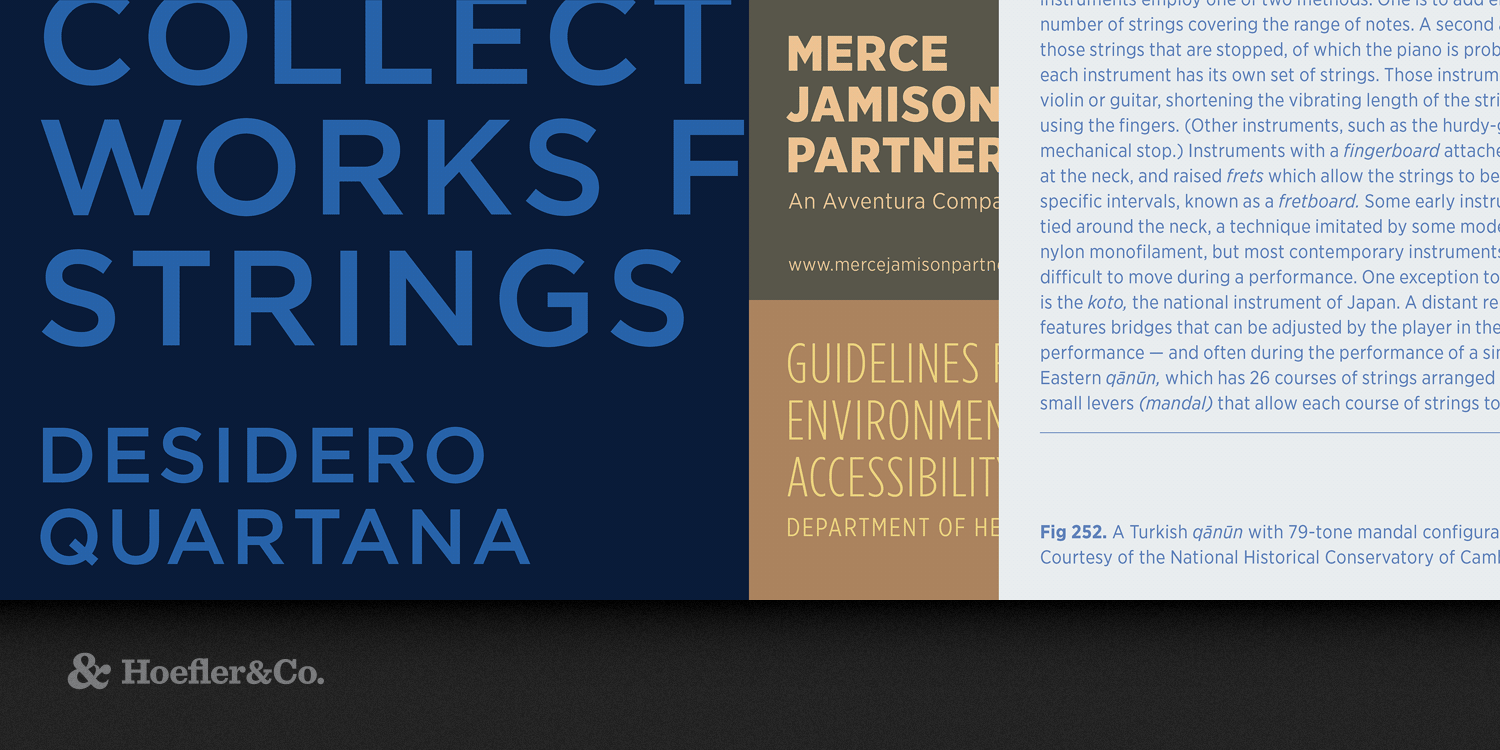
Gotham Font is perfect for modern corporate branding, political campaign materials, urban architecture signage, contemporary magazine layouts, tech startup logos, municipal government communications, metropolitan transit systems, modern museum displays, progressive advertising campaigns, and any projects that need strong, authoritative typography with urban sophistication.
What makes Gotham Font exciting is its powerful geometric design inspired by the bold lettering found throughout New York City's urban landscape, creating letterforms that embody strength, clarity, and metropolitan confidence. This iconic typeface features precise geometric construction with subtle humanist touches that ensure excellent readability while maintaining commanding presence. The font's urban character makes it perfect for brands seeking to communicate authority, progress, and the dynamic energy of modern city life.
Gotham Font family includes comprehensive urban-inspired weights featuring thin, light, book, medium, bold, black, and ultra variants. The font family also offers narrow and condensed versions optimized for space-constrained applications, along with rounded variants that soften the geometric edges. Special features include extensive language support, multiple numeral styles, and carefully crafted spacing that ensures optimal performance in both text and display applications.